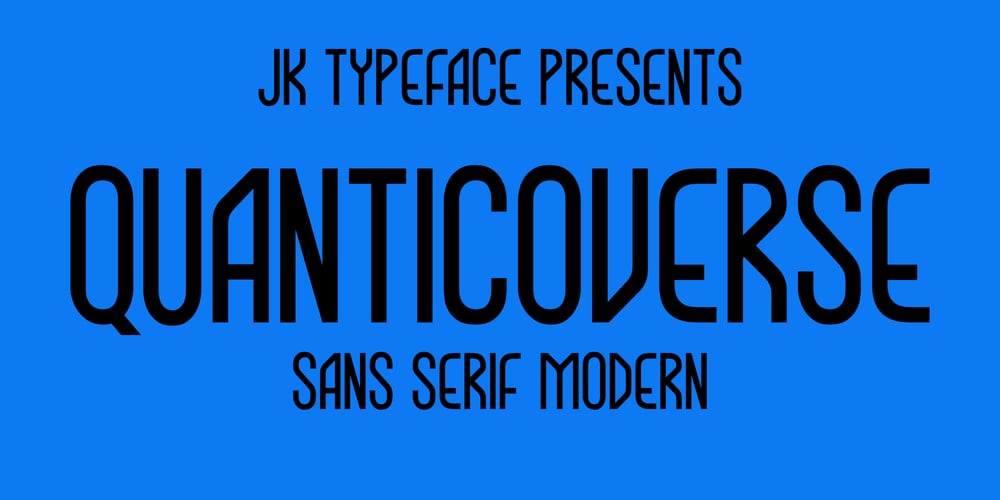
Quanticoverse
Quanticoverse font
Quanticoverse Font Family was designed by Hilton Santos and published by JK Typeface. Quanticoverse contains 2 styles and family package options. Semi-condensed sans-serif with expressive curves on the outside and closed on the inside, with diagonal stems to convey modernity and a unique personality. Perfect for titles and headers in graphic and editorial design projects, as well as standing out in digital applications.